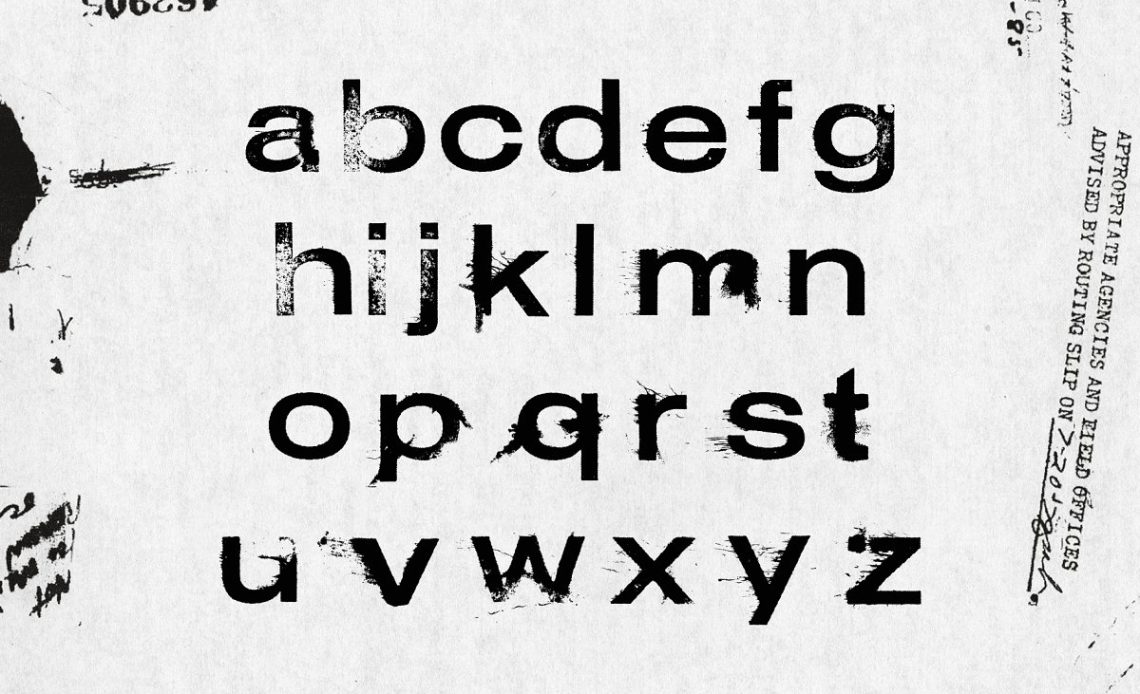
Get ready to add a touch of raw punk rock energy to your next design project with Bitdriver Light - the OpenType SVG Font created by Wes Driver. Inspired by the grunge and distressed type aesthetic of the 90s, this sans serif font family is perfect for magazine ads, flyers, and any design that requires a gritty edge.
Unlike other vector fonts, Bitdriver Light is an OpenType-SVG bitmap font created by hand, making it one of the most realistic grunge fonts you'll ever find. With lots of alternate glyphs, you can double the usage of letters while still retaining a custom look. And while it's true that SVG fonts can't be scaled to infinity, this font is still suitable for smaller print projects and has great reproduction even at 150pt.
In short, if you're looking for a font that's edgy, handmade, and perfect for capturing that punk rock vibe, Bitdriver Light is the way to go. Add it to your design toolkit today and start creating designs that demand attention.